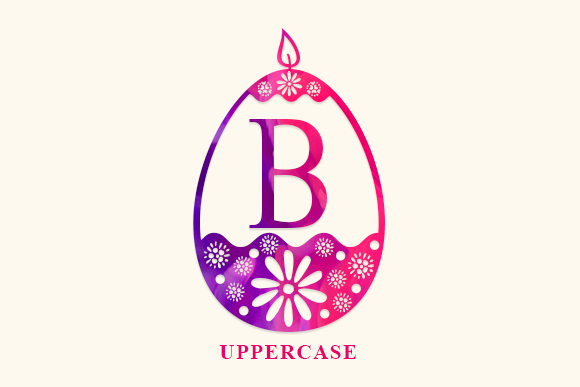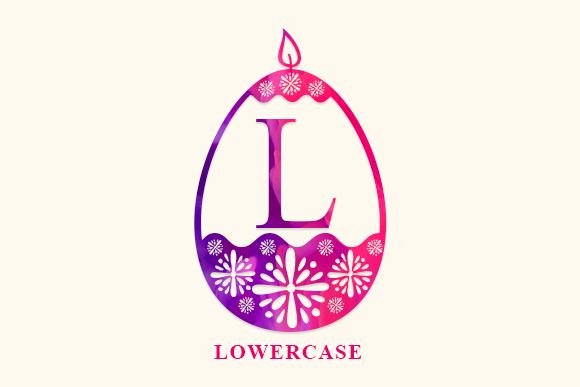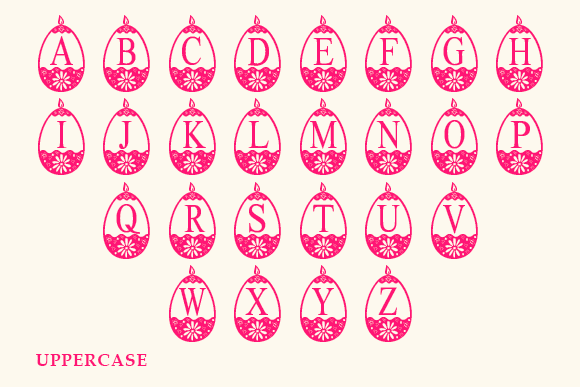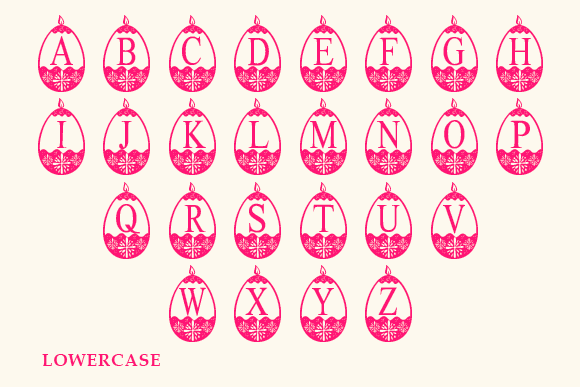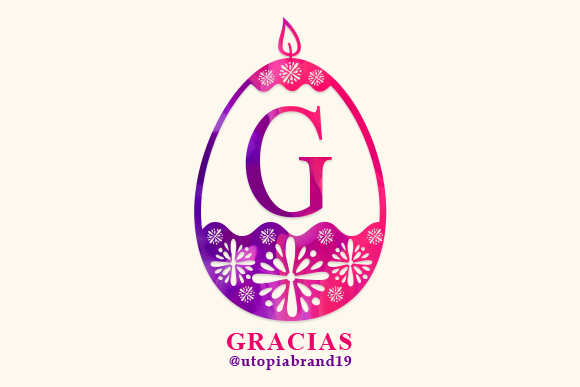
Candle Egg Font: Add a Personalized Touch to Your Easter Crafts
Are you looking for a unique and festive font to make your Easter crafts stand out? Look no further than the Candle Egg Font, a delightful Easter holiday-themed decorative font that’s perfect for adding a personalized touch to your crafting projects. In this article, we’ll explore the features and benefits of the Candle Egg Font, and show you how to make the most of this beautiful font in your designs.
What is Candle Egg Font?
Candle Egg Font is a decorative font specifically designed for Easter-themed crafts and projects. This charming font is inspired by the joy and celebration of Easter, with a playful and whimsical design that’s sure to delight. The Candle Egg Font is perfect for crafters, designers, and DIY enthusiasts who want to add a personal touch to their Easter-themed projects, such as greeting cards, gift tags, and paper crafts.
Key Features of Candle Egg Font
- Easter-themed design: The Candle Egg Font features a unique and festive design that’s perfect for Easter-themed crafts and projects.
- Decorative and playful: This font is designed to add a touch of whimsy and fun to your designs, making it perfect for crafting projects that require a personalized look.
- High-quality and scalable: The Candle Egg Font is a high-quality font that’s designed to be scalable, ensuring that it looks great in any size or resolution.
- Easily customizable: With the Candle Egg Font, you can easily customize your text to fit your design needs, making it perfect for crafting projects that require a personal touch.
Benefits of Using Candle Egg Font
So why choose the Candle Egg Font for your Easter crafts and projects? Here are just a few benefits of using this beautiful font:
- Add a personal touch: With the Candle Egg Font, you can add a personal touch to your Easter crafts and projects, making them truly unique and special.
- Stand out from the crowd: The Candle Egg Font is a unique and festive font that’s sure to make your Easter crafts and projects stand out from the crowd.
- Perfect for Easter-themed projects: This font is specifically designed for Easter-themed crafts and projects, making it the perfect choice for anyone looking to create festive and fun designs.
- Easily paired with other fonts: The Candle Egg Font can be easily paired with other fonts to create a unique and visually appealing design.
Creative Ways to Use Candle Egg Font
So how can you use the Candle Egg Font in your crafting projects? Here are a few creative ideas to get you started:
- Easter greeting cards: Use the Candle Egg Font to create personalized Easter greeting cards for friends and family.
- Gift tags: Add a personal touch to your Easter gifts with custom gift tags featuring the Candle Egg Font.
- Paper crafts: Use the Candle Egg Font to create festive and fun paper crafts, such as Easter-themed scrapbook pages and decorations.
- DIY Easter decorations: Create custom Easter decorations, such as banners and signs, using the Candle Egg Font.
Tips for Using Candle Egg Font
Here are a few tips for using the Candle Egg Font in your crafting projects:
- Experiment with different colors: Try pairing the Candle Egg Font with different colors and textures to create a unique and visually appealing design.
- Play with font sizes: Experiment with different font sizes to create a visually appealing design that draws attention to your text.
- Combine with other fonts: Try pairing the Candle Egg Font with other fonts to create a unique and visually appealing design.
The Candle Egg Font is a beautiful and festive font that’s perfect for adding a personalized touch to your Easter crafts and projects. With its unique and playful design, this font is sure to make your Easter-themed designs stand out from the crowd. Whether you’re a crafter, designer, or DIY enthusiast, the Candle Egg Font is a great choice for anyone looking to create festive and fun Easter-themed projects. So why wait? Download the Candle Egg Font today and start creating your own unique Easter crafts and projects!